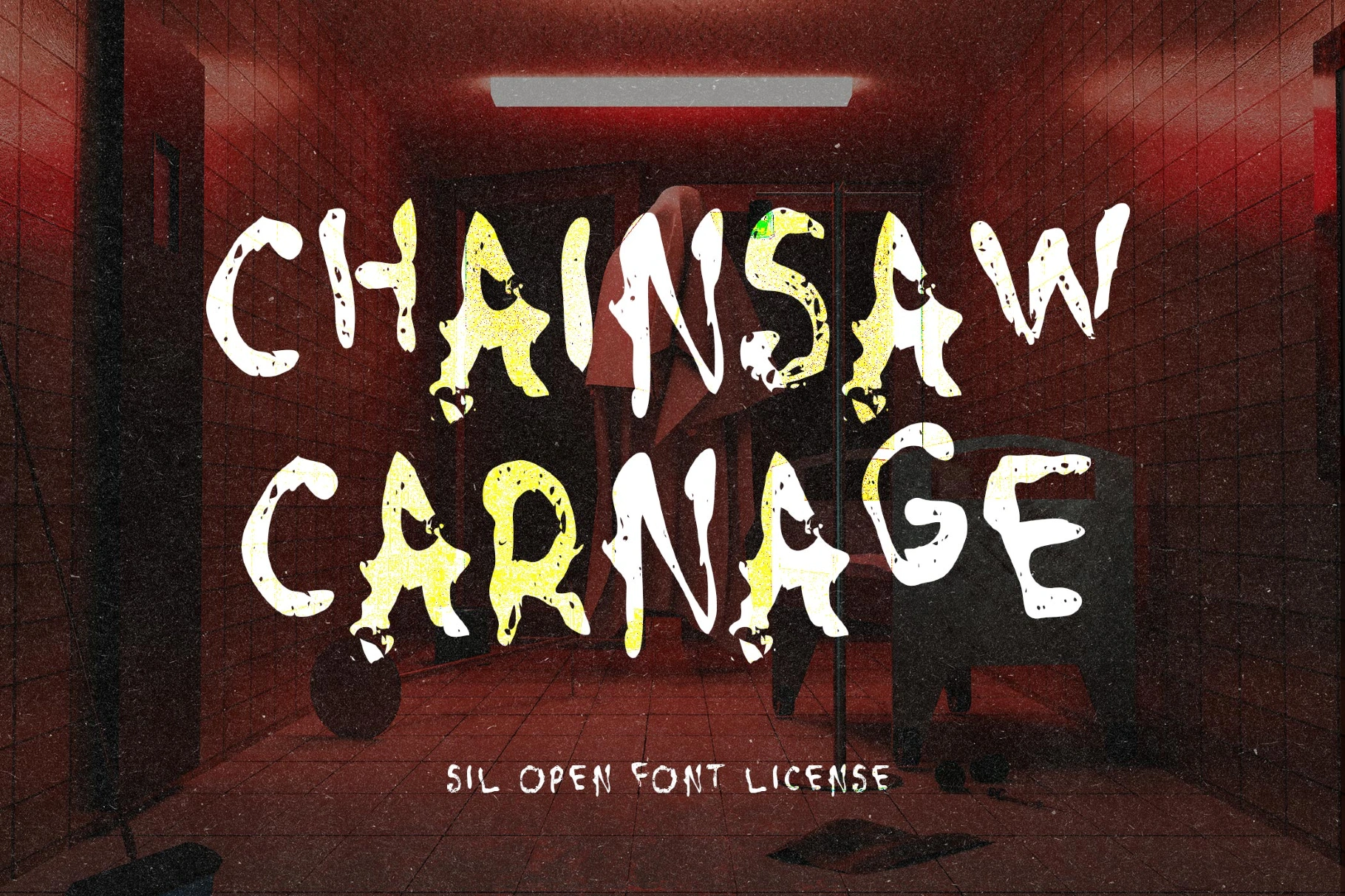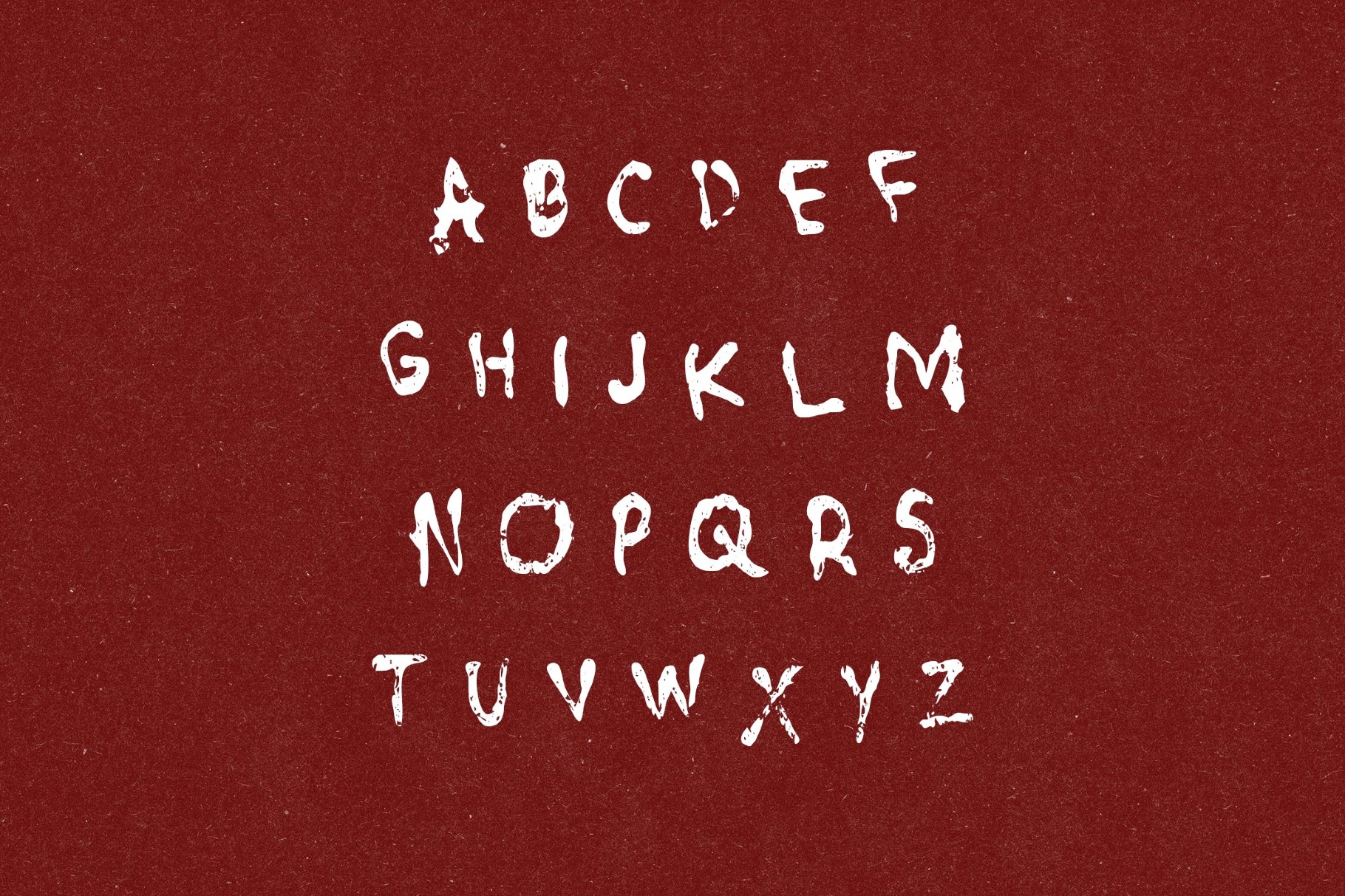
Chainsaw Carnage - Chaotic Creepy Font
ChainsawCarnage
Chainsaw Carnage goes violent and unrestrained, with slashed strokes. The letterforms are aggressive, with chaotic shapes that echo the unpredictability & danger. There’s tension built into every word — nothing feels controlled. This creepy type works well in visuals that need to feel uncomfortable: horror posters, haunted visuals, album artwork, or anything leaning into fear and distortion.